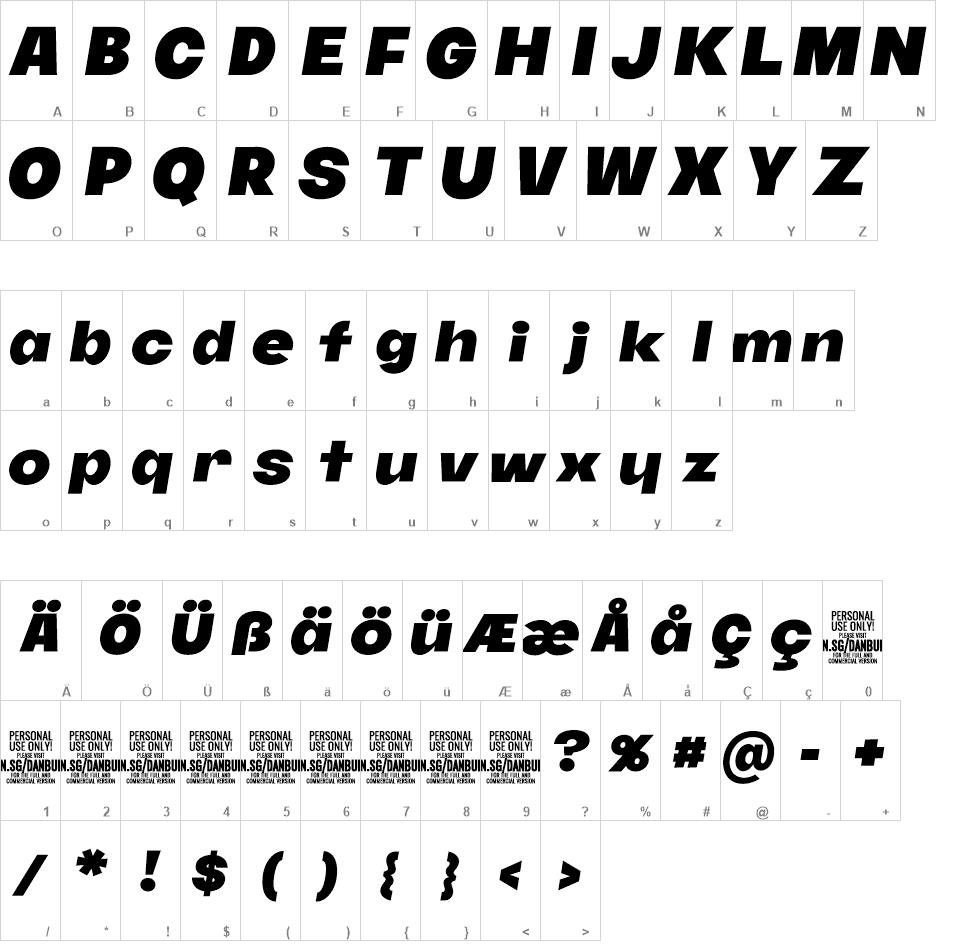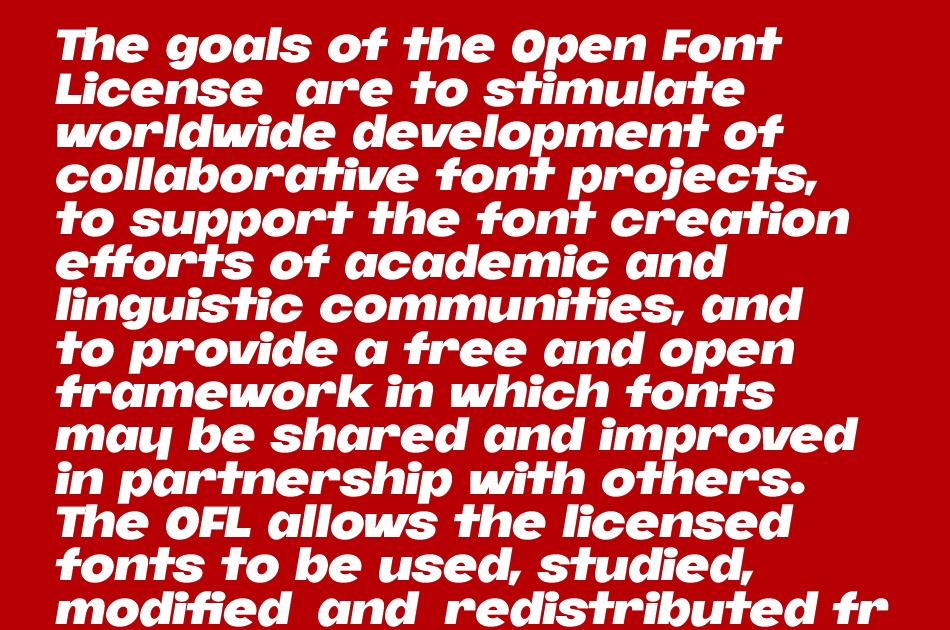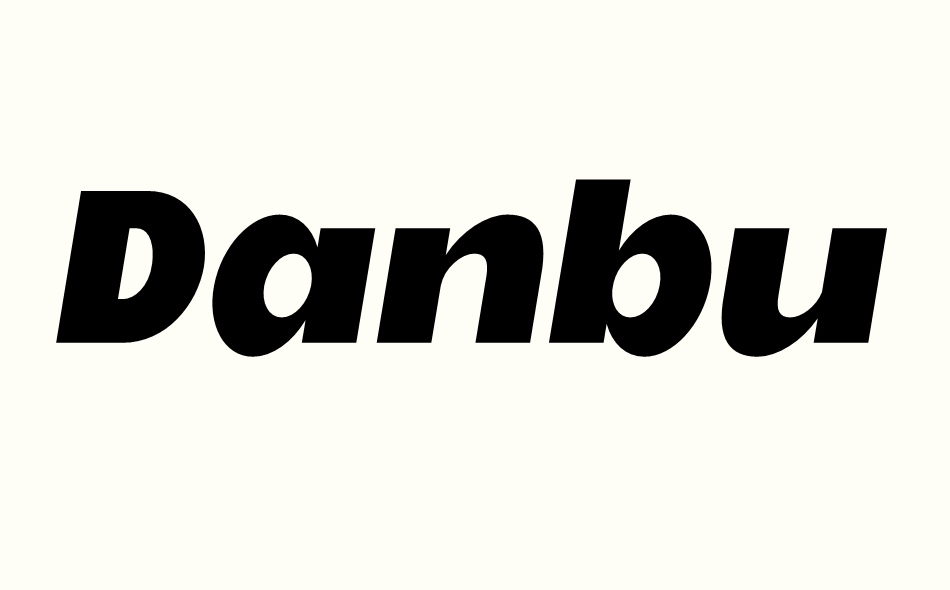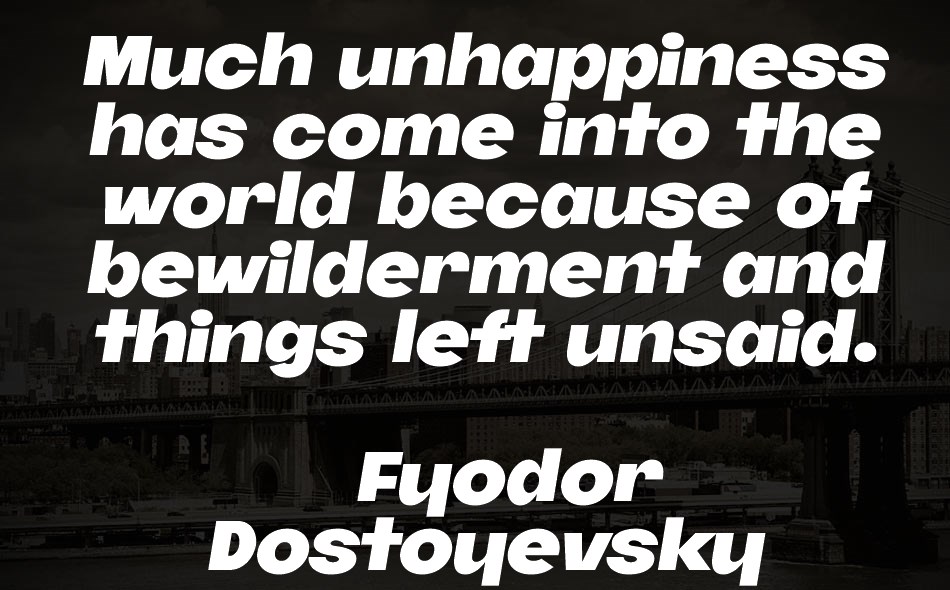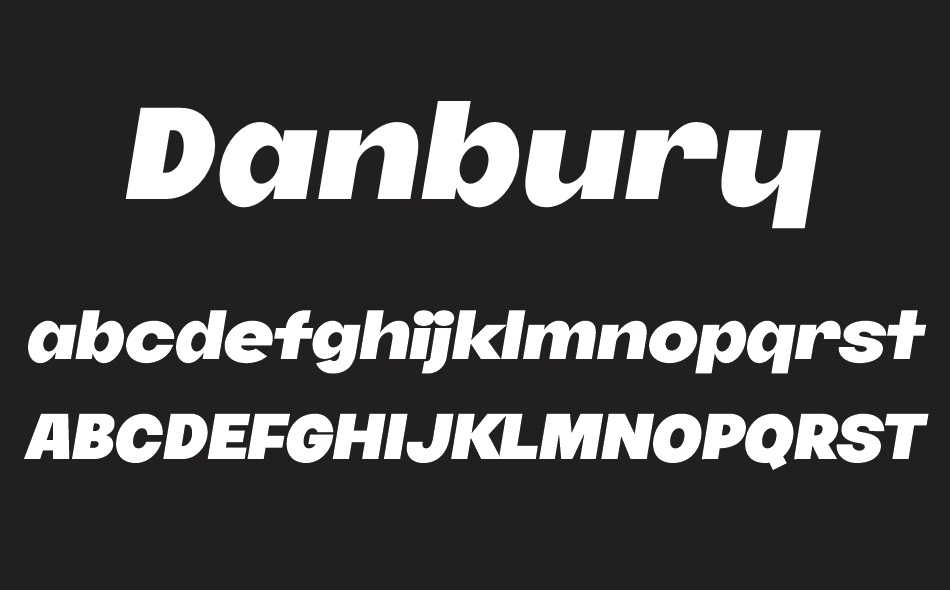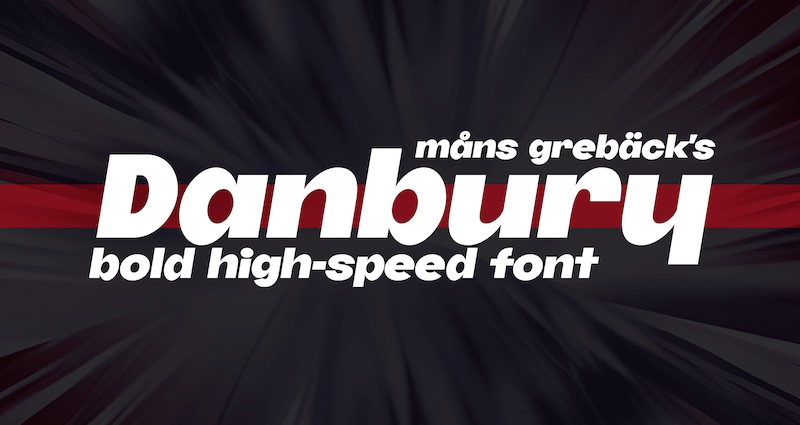
Danbury font
Danbury is a modern sans-serif typeface.
Drawn and created by Mans Greback between 2020-2022, this slanted font has a distinct style and a strong personality. Danbury is a typeface with velocity and power: Use it in a sports campaign, a fresh headline or a cool logotype.
The Danbury family is provided in the styles Regular and Bold, Caps and Caps Bold, Small and Small Bold: the perfect setup for a diverse design usage.
The font is built with advanced OpenType functionality and has a guaranteed top-notch quality, containing stylistic and contextual alternates, ligatures and more features; all to give you full control and customizability. It has extensive lingual support, covering all Latin-based languages, from North Europe to South Africa, from America to South-East Asia. It contains all characters and symbols you'll ever need, including all punctuation and numbers.